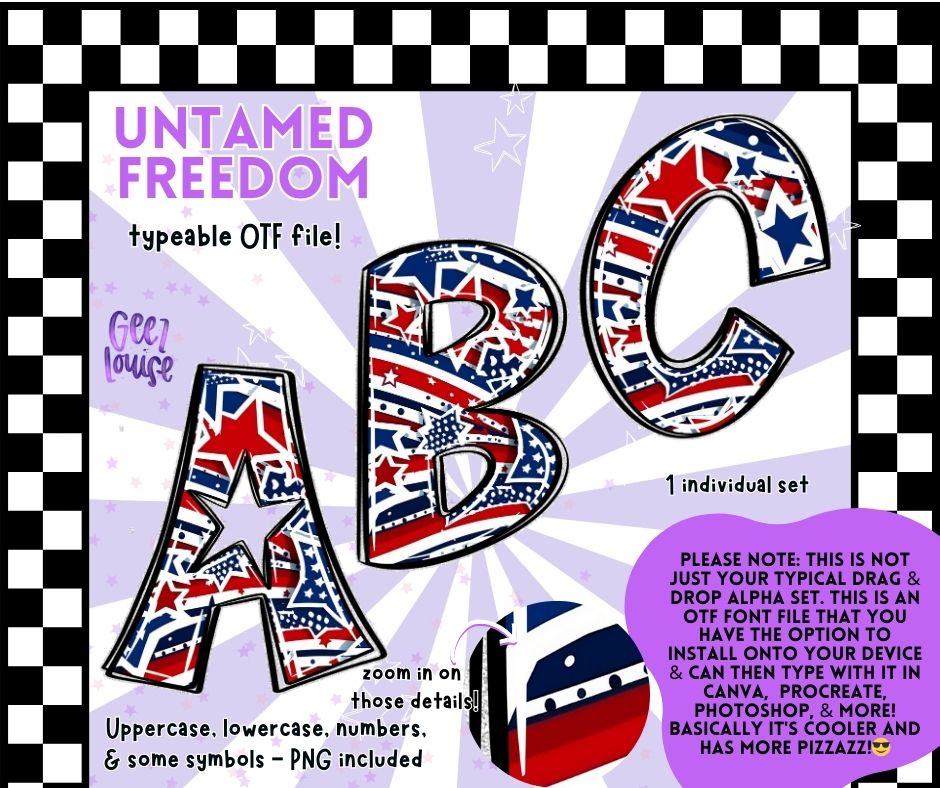
Untamed Freedom – Patriotic OTF Font + PNG Alpha Set
Let your designs scream red, white, and bold with Untamed Freedom, a wild and star-spangled OTF alpha set that’s anything but tame. This font is perfect for all your summer holiday vibes – from Memorial Day and 4th of July to everyday proud-American projects.
Great for t-shirts, tumblers, banners, and loud ‘n proud designs 🎆🇺🇸